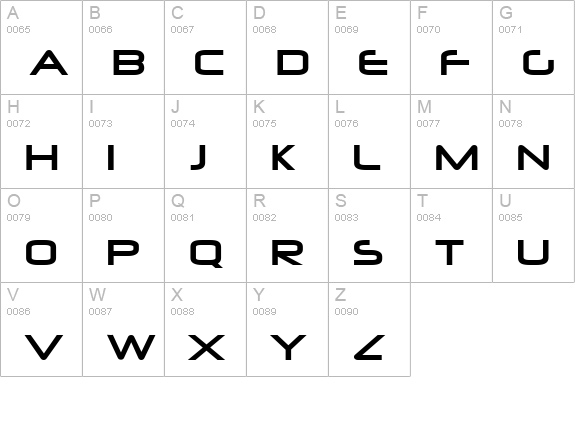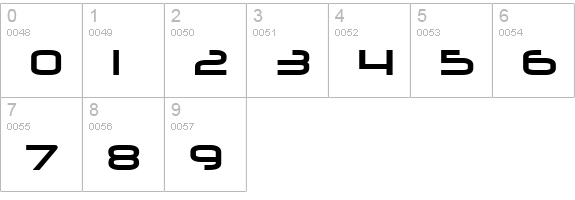
Neuropolitical font is a futuristic and sleek typeface that embodies a perfect blend of modernity and sophistication. With its sharp edges and unique letterforms, this font exudes a sense of innovation and forward-thinking design. Whether you are working on a tech-related project, a sci-fi novel, or a cutting-edge branding campaign, Neuropolitical font will add a touch of contemporary flair to your work. The best part about Neuropolitical font is that it is completely free to download at FontsMarket.com. This means you can access this stunning typeface without any cost, making it a valuable asset for designers, creatives, and enthusiasts alike. Embrace the future of typography with Neuropolitical font and elevate your projects with its distinct style and visual impact.